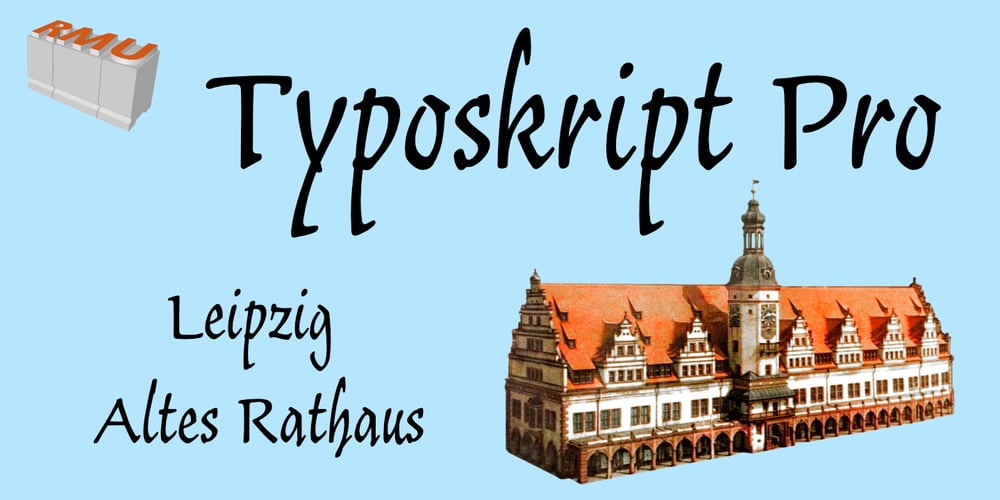
Typoskript Pro
Typoskript Pro font
Typoskript Pro Font Family was designed by Ralph M. Unger, Hildegard Korger and published by RMU. Typoskript Pro contains 1 styles and family package options. In 1968 Hildegard Korger’s Typoskript was cut by Typoart in Dresden, Saxony. This freshly redrawn and digitized version was extended to include Central European, Baltic and Turkish letterforms, and possesses various OTF features. It is well suited for invitations, lyrics, poems and related things.